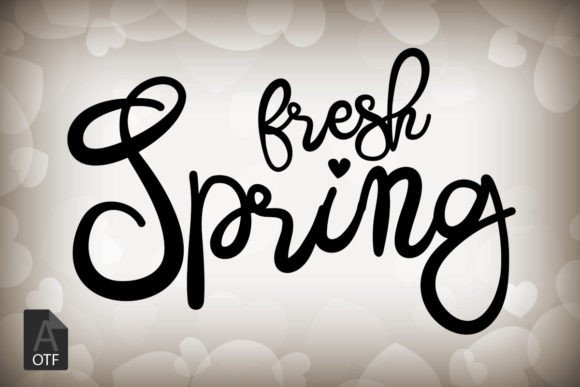
Introducing Fresh Spring Font: Elevate Your Designs with a Trendy and Stylish Script Font
As the seasons change and spring arrives, it’s the perfect time to refresh your design library with a beautiful and modern script font. Look no further than Fresh Spring Font, a gorgeous addition to any designer’s or crafter’s collection. This trendy and stylish font is designed to elevate each of your creations, regardless of the theme or project.
What is Fresh Spring Font?
Fresh Spring Font is a stunning script font that exudes elegance and sophistication. Its flowing lines and curves create a beautiful, hand-written look that’s perfect for a variety of design projects. Whether you’re working on a branding project, creating social media graphics, or designing invitations and cards, Fresh Spring Font is the perfect choice.
Key Features of Fresh Spring Font
• Trendy and Stylish: Fresh Spring Font is a modern script font that’s perfect for designers and crafters who want to add a touch of elegance to their designs.
• Versatile: This font can be used for a wide range of design projects, from branding and advertising to invitations and social media graphics.
• Elegant and Sophisticated: Fresh Spring Font features flowing lines and curves that create a beautiful, hand-written look.
• Easy to Read: Despite its elegant and cursive nature, Fresh Spring Font is easy to read, making it perfect for body text and headings.
How to Use Fresh Spring Font
Fresh Spring Font is incredibly versatile and can be used for a wide range of design projects. Here are a few ideas to get you started:
• Branding and Advertising: Use Fresh Spring Font to create stunning logos, business cards, and brochures that showcase your brand’s personality and style.
• Social Media Graphics: Add a touch of elegance to your social media graphics, such as Instagram posts and Facebook covers, with Fresh Spring Font.
• Invitations and Cards: Create beautiful invitations, greeting cards, and thank-you cards with Fresh Spring Font.
• Web Design: Use Fresh Spring Font to create stunning website headers, titles, and other design elements that add a touch of elegance to your website.
Why Choose Fresh Spring Font?
With so many fonts available, why choose Fresh Spring Font? Here are a few reasons why this font stands out:
• Unique and Exclusive: Fresh Spring Font is a unique and exclusive font that’s not commonly found in font libraries.
• High-Quality: This font is designed with high-quality and precision, ensuring that it looks stunning in any design project.
In conclusion, Fresh Spring Font is a gorgeous script font that’s perfect for designers and crafters who want to add a touch of elegance and sophistication to their designs. With its trendy and stylish design, versatility, and ease of use, this font is sure to become a staple in your font library. Whether you’re working on a branding project, creating social media graphics, or designing invitations and cards, Fresh Spring Font is the perfect choice.